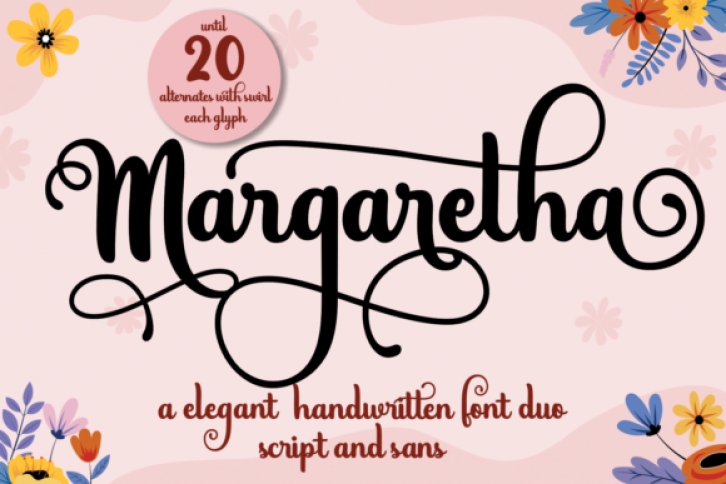
Margaretha is an elegant script font with a contemporary atmosphere and impeccable form, inspired by timeless classic calligraphy. It has beautiful and well balanced characters and as a result, it matches a wide pool of designs. Margaretha is PUA encoded which means you can access all of the glyphs and swashes with ease!